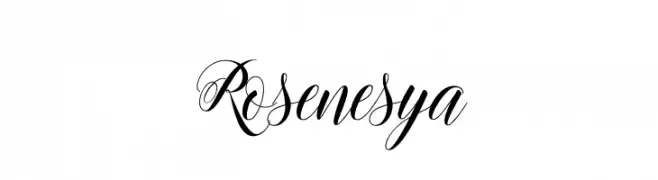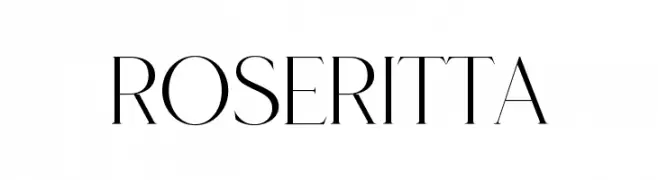
A modern, elegant script font with flowing, cursive letters and graceful curves.
An elegant script font with flowing, interconnected letters and refined flourishes.
A charming, elegant handwritten script with flowing, interconnected letters.
An elegant script font with intricate swashes and flowing letterforms.
A bold, distressed font with a vintage, rugged appearance.
A sophisticated script font with elegant, flowing strokes.
An elegant serif font with decorative flourishes and a classic yet modern appeal.
An elegant script font with flowing, interconnected letters and ornate flourishes.
An elegant cursive script font with fluid, connected letters and graceful curves.
An elegant serif typeface with high contrast and refined, elongated strokes.